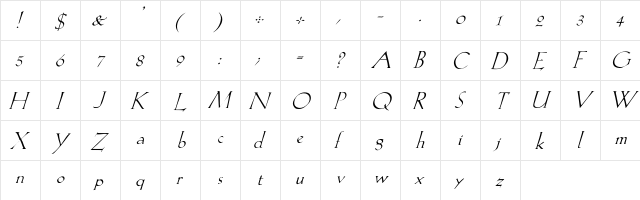
Lilith-Italic Regular Font Preview
Lilith-Italic Regular
Design Context for Lilith-Italic Typeface
Lilith-Italic offers clean, dependable letterforms without strong stylistic allegiance, making it a practical choice for designers who need flexibility. The slanted form adds forward momentum and visual energy.
Pro Tip: Try Lilith-Italic for annotation and caption copy alongside an upright companion — the contrast in angle creates a dynamic but ordered typographic system.